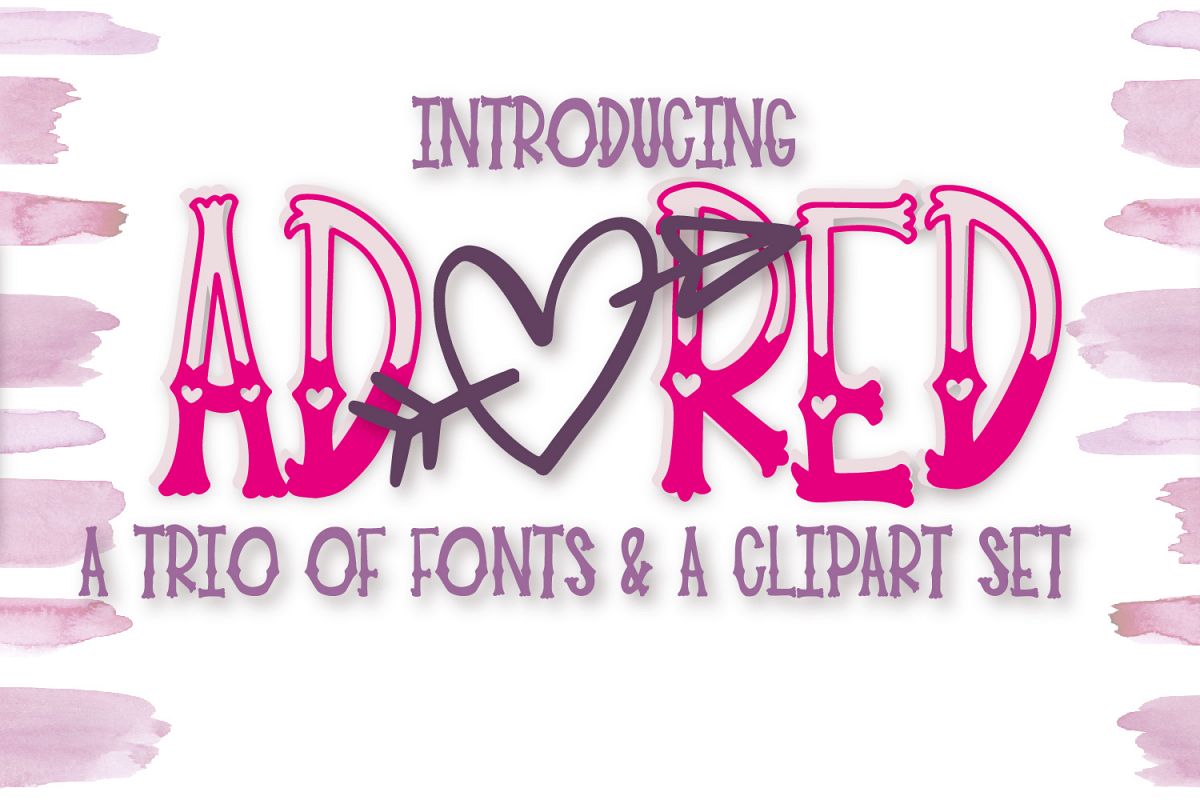
Adored - A Hand Lettered Font Trio & Clipart Pack
Adored is a fun hand drawn font trio, with 6 different styles! It also comes with a mini clipart set of hand drawn love doodles!